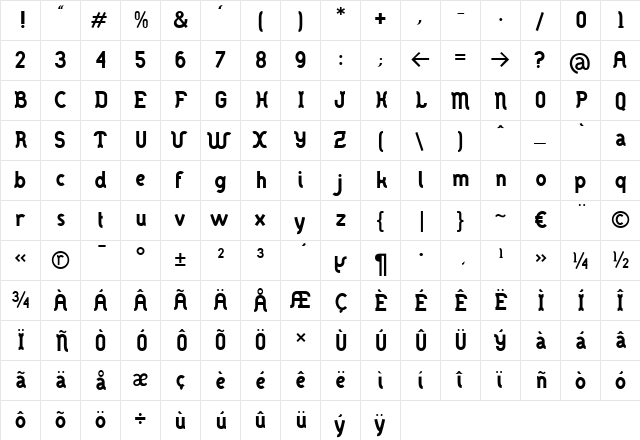
DANOISE Bold
Design Context for DANOISE Typeface
DANOISE offers clean, dependable letterforms without strong stylistic allegiance, making it a practical choice for designers who need flexibility. Its bold stroke weight gives it real presence on the page.